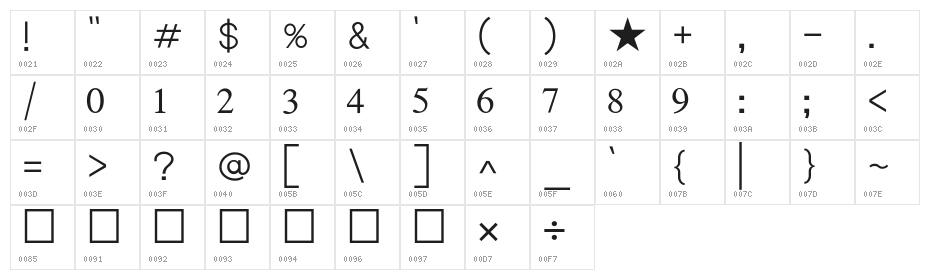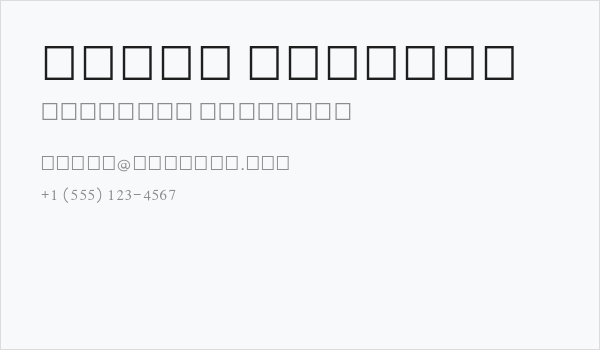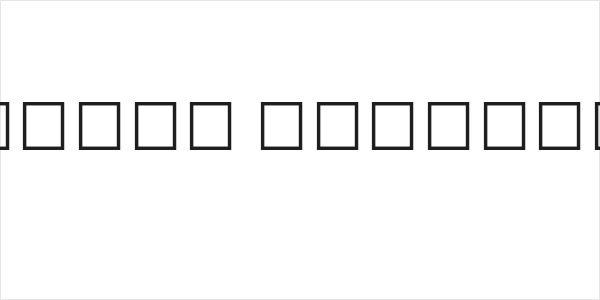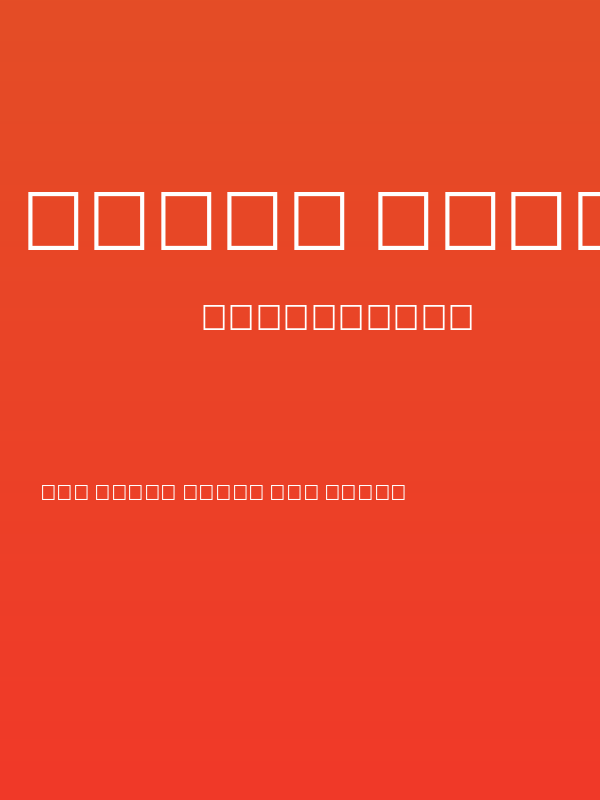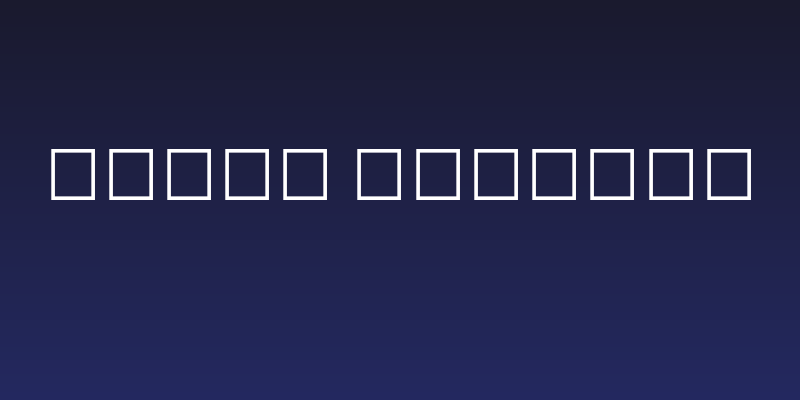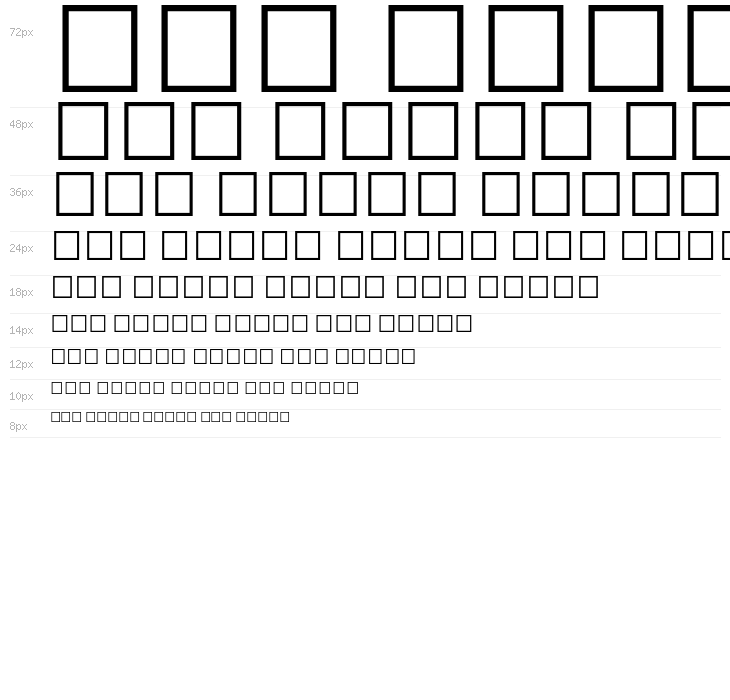
Lohit Punjabi Font
Lohit Punjabi Description
This font is a clean and modern typeface that features a balanced and uniform appearance. The characters are well-defined with a consistent stroke width, making it highly legible. The numerals are clear and distinct, while the special characters are designed to complement the overall style. The font's simplicity and clarity make it versatile for various applications.
| Use Case | Body text, Digital interfaces, Educational materials |
| Proposed Projects | Ideal for projects such as corporate branding, digital interfaces, educational materials, and print media where clarity and professionalism are key. |